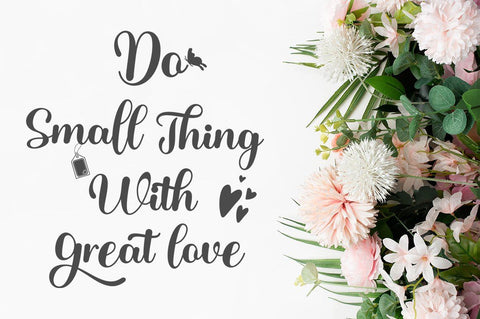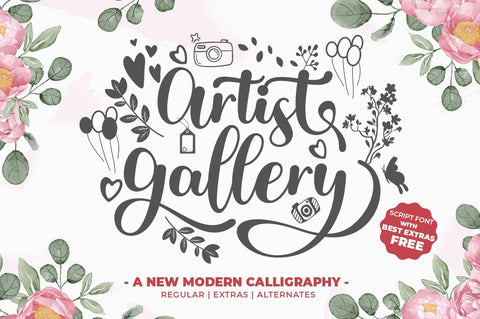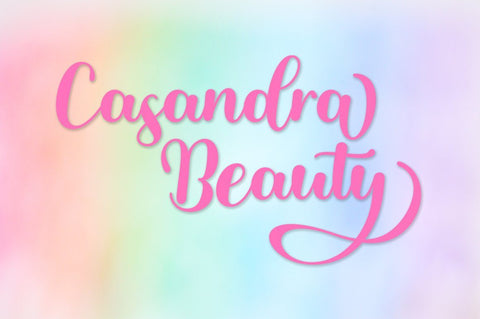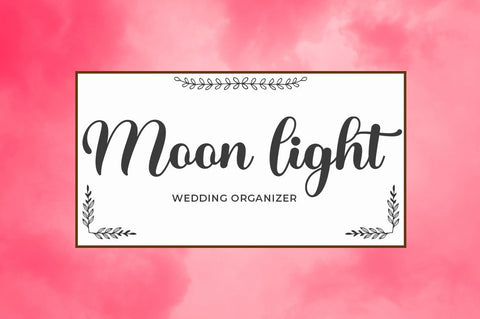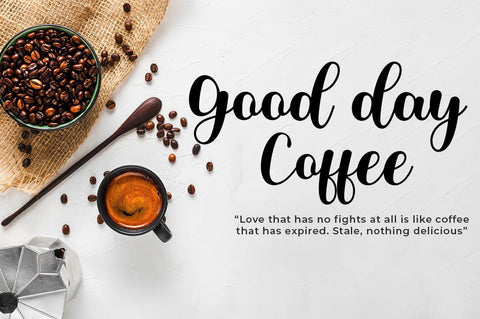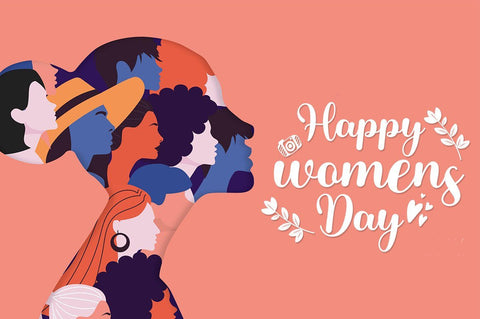
Artist Gallery
Artist Gallery - With Extras Script Font is a new modern script font with an irregular base line. Trendy and feminine style. Artist Gallery - With Extras looks beautiful in wedding invitations, thank-you cards, quotes, greeting cards, logos, business cards, and more. Perfect for use in ink or watercolors. Including initial letters and terminals, alternatives and support for many languages.